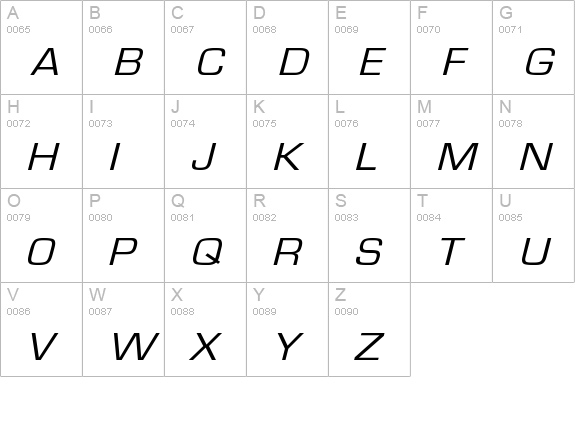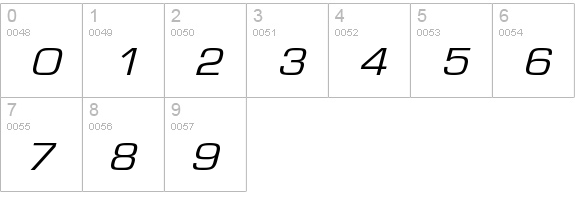
GardenwayExtO 2 Font Details
GardenwayExtO 2 font is a beautifully crafted typeface that exudes elegance and sophistication. Its elongated letterforms and graceful curves make it perfect for adding a touch of refinement to any project. This font is versatile and can be used for a variety of design applications, from branding to editorial design. What sets GardenwayExtO 2 font apart is its seamless blend of classic and modern elements, making it a timeless choice for designers looking to make a statement. Whether you're working on a logo, website, or print material, this font will elevate your design and give it a polished finish. The best part? GardenwayExtO 2 font is available for free download at FontsMarket.com. This means you can easily access this stunning typeface and incorporate it into your projects without any cost. Don't miss out on this opportunity to enhance your designs with the elegance and sophistication of GardenwayExtO 2 font. Download it today and let your creativity shine!